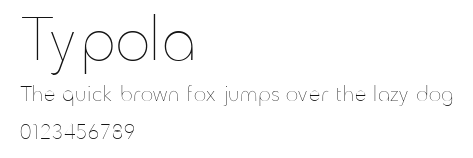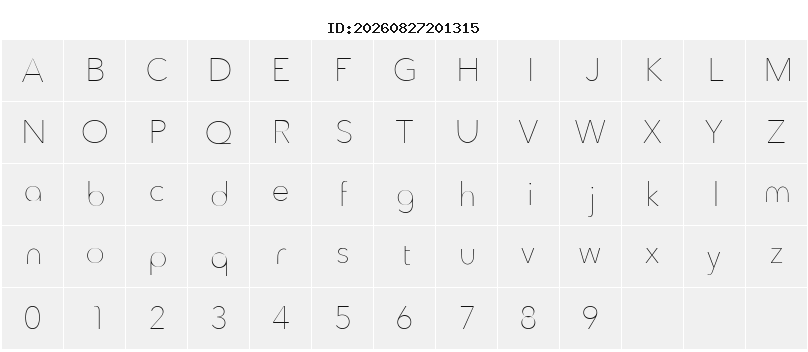
Typola Preview
About Typola.ttf
Typola.ttf is a modern, elegant sans-serif font designed for ultimate readability and visual harmony. Perfect for branding, headlines, web design, and print materials.